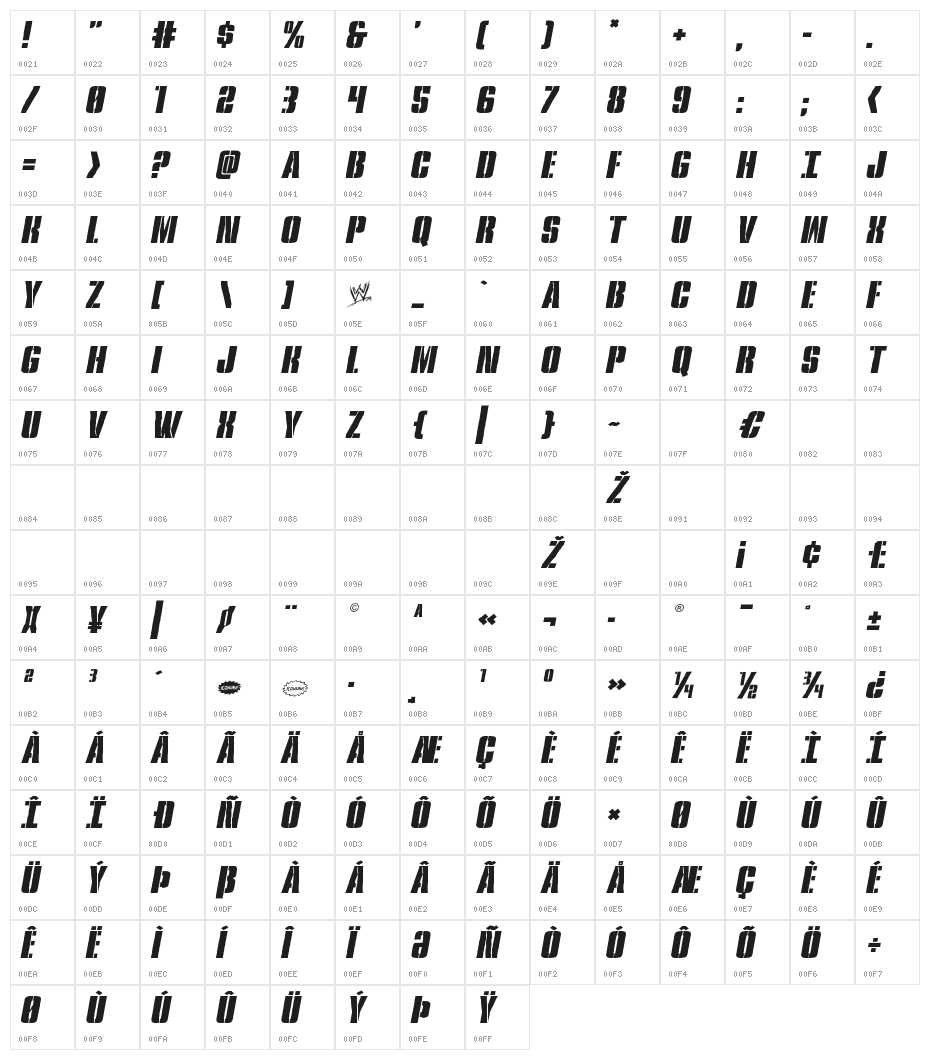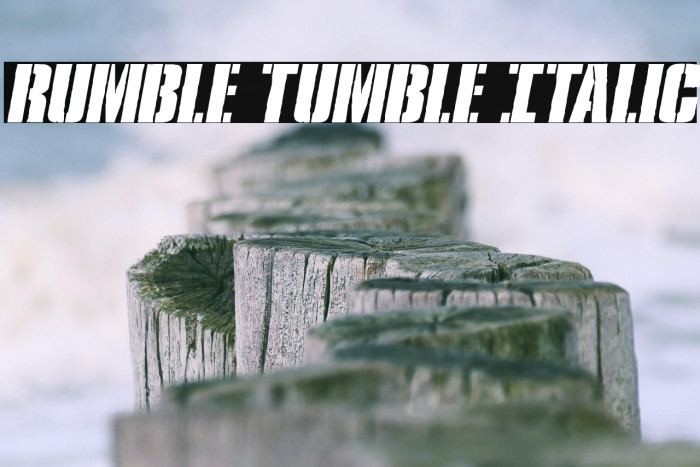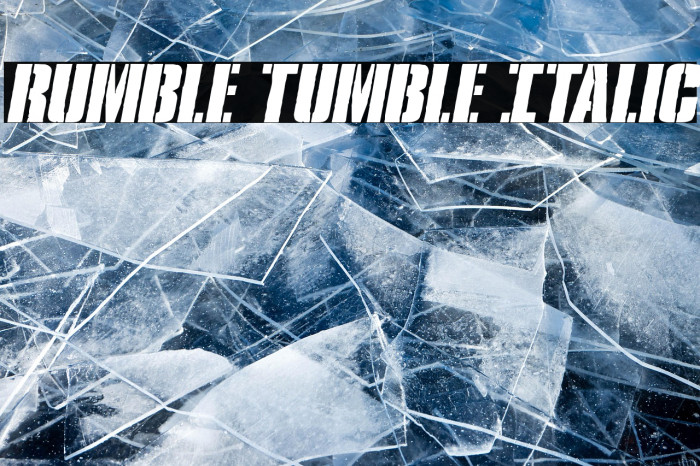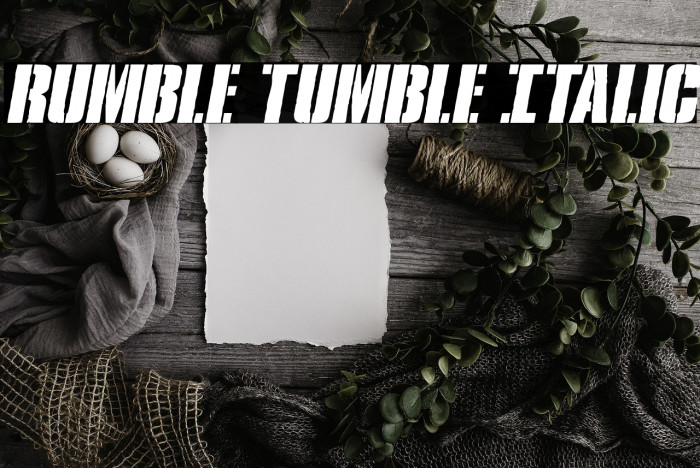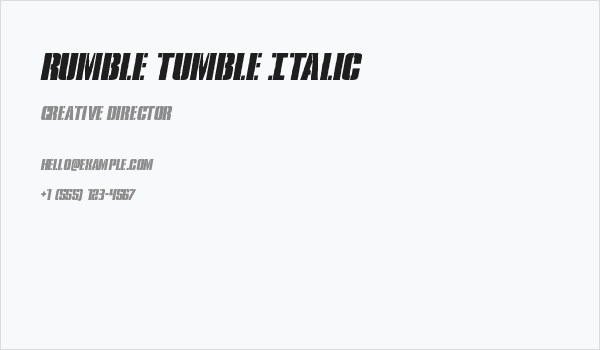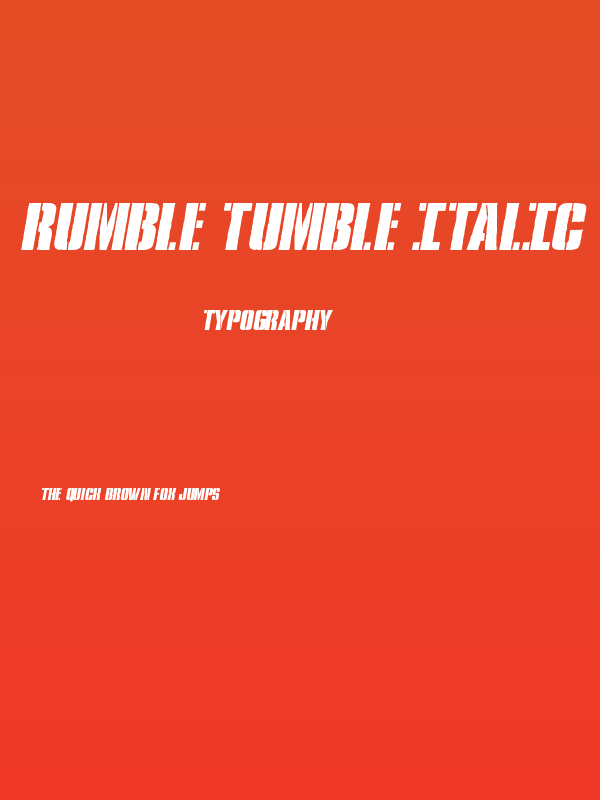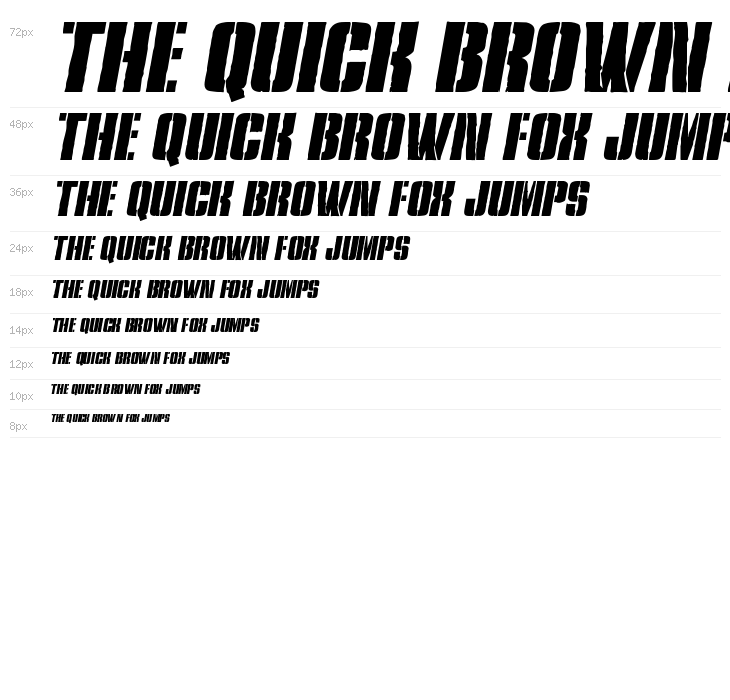
Rumble Tumble Italic Font
Rumble Tumble Italic Description
This font features a bold, italicized style with a distinct stencil-like appearance. The characters are heavily weighted and have a rugged, industrial feel, making them stand out with their unique cut-out sections. The uppercase and lowercase letters maintain a consistent design, emphasizing a strong, impactful presence. The numbers and special characters follow the same bold and dynamic style, ensuring uniformity across all elements. This font is ideal for projects that require a robust and eye-catching typeface.
| Proposed Projects | Perfect for posters, logos, branding, and any design needing a strong, industrial aesthetic. |